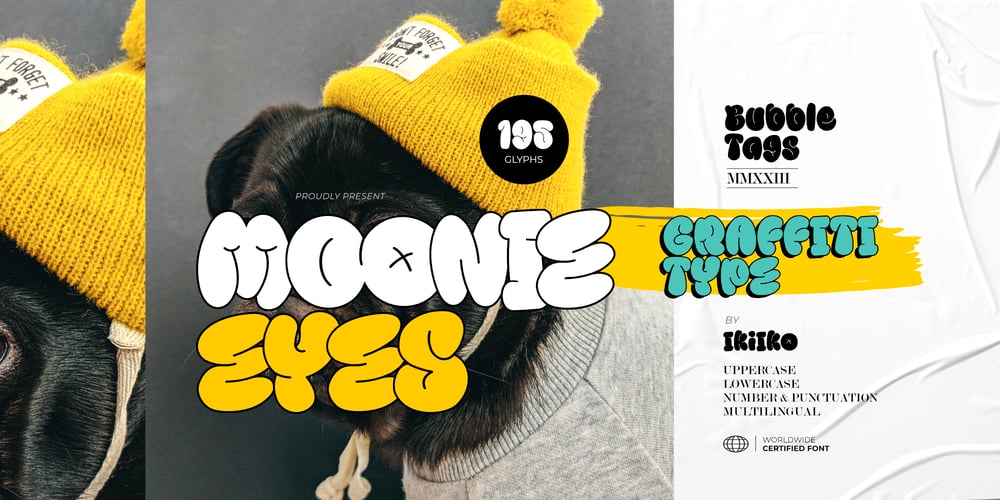
Moonie Eyes
Moonie Eyes font
Moonie Eyes Font Family was designed by Andhika Pradana and published by IKIIKOWRK. Moonie Eyes contains 1 styles and family package options. Proudly present Moonie Eyes – Graffiti Type, created by ikiiko.Moonie Eyes is a handwritten font with spontaneous curves inspired by street art markings. The letters bubble and pile up on each other to become strong characters in this graffiti letters. You can play with separate characters or overlapping each other.This type is very suitable for making a streetwear brand, poster or magazine layout, fashion design, quotes, or simply as a stylish text overlay to any background image.What’s Included? Uppercase & Lowercase Numbers & Punctuation Multilingual Support Works on PC & Mac Enjoy our font and if you have any questions, you can contact us by email : ikiikowrk@gmail.com